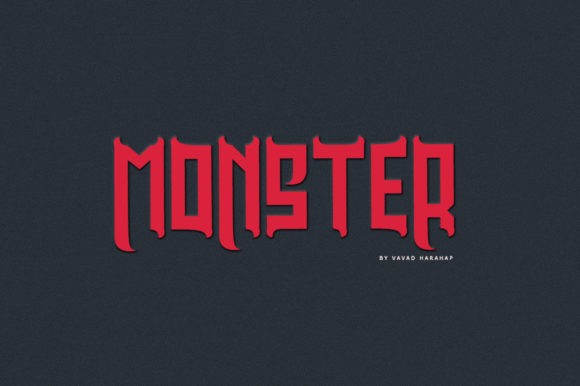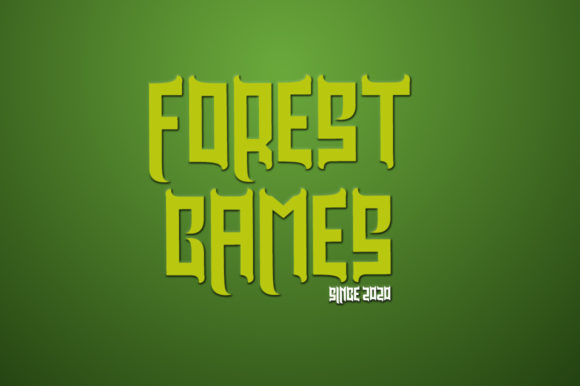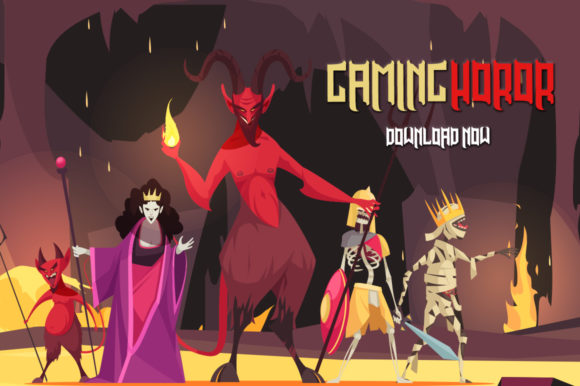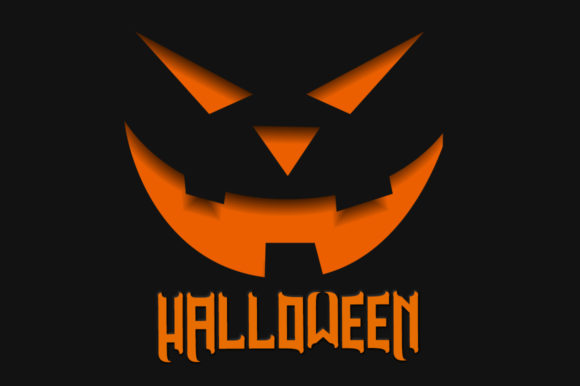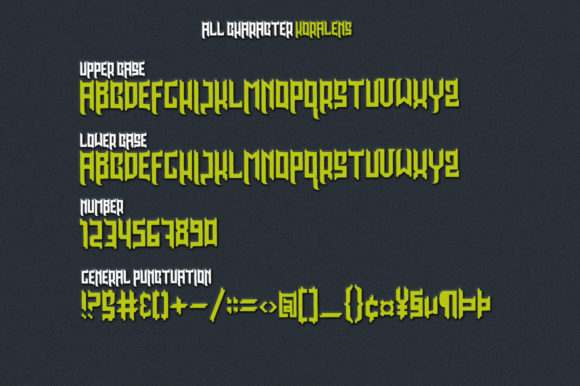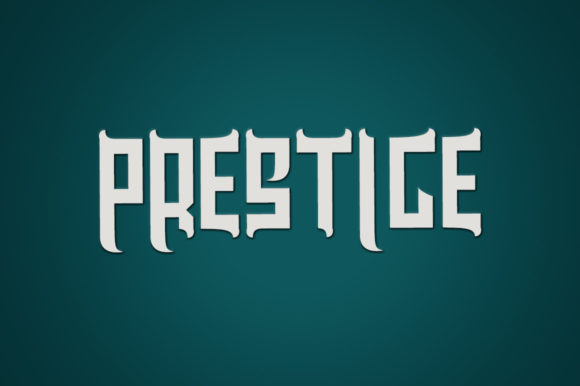
Introduction to Koralens Font
Koralens is a bold and incredibly unique blackletter font.
Dramatic and a bit creepy, this font will most certainly make each of your posters stand out .
Key Features of Koralens Font